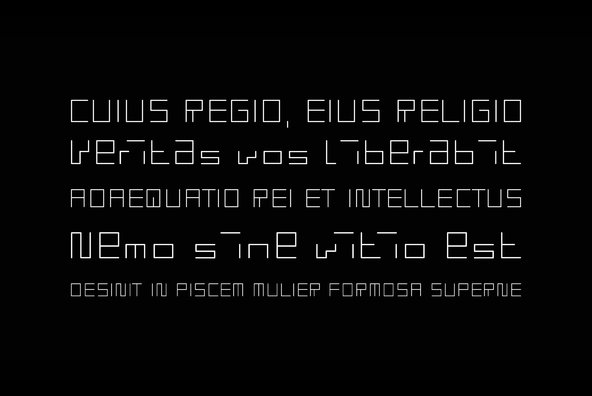
Szablon
Designed by Wojtek Podulka in 2004, Szablon is a modern and obscure type design. Szablon maintains a modern, minimal and avant garde presence that works great in branding projects.